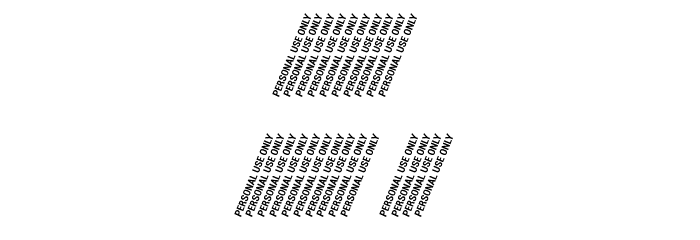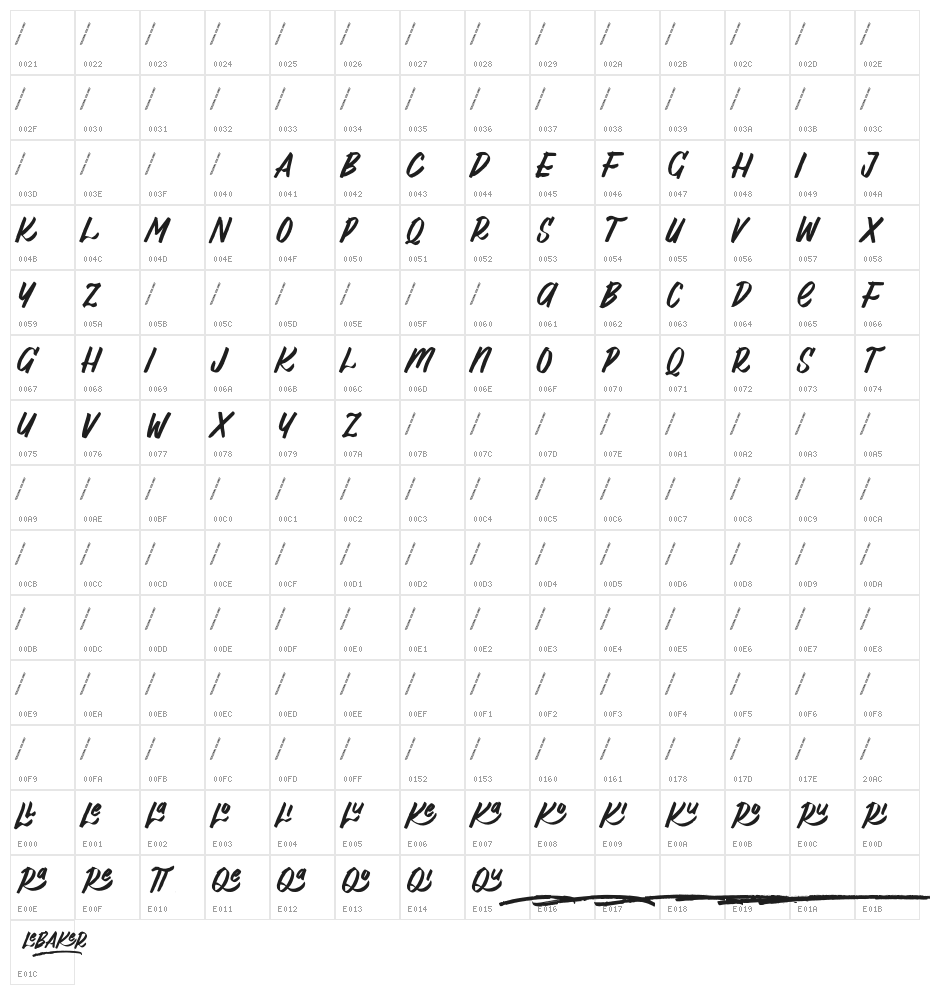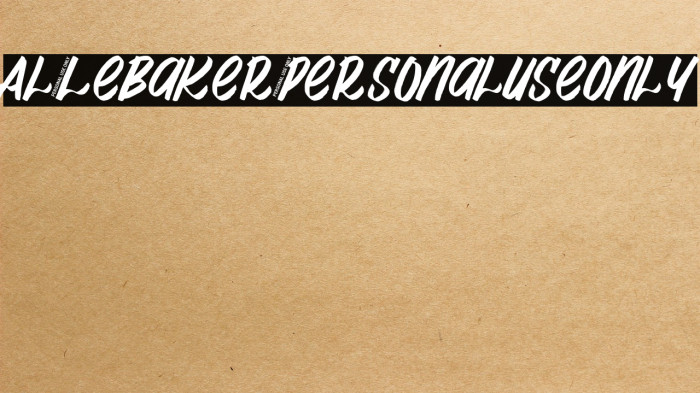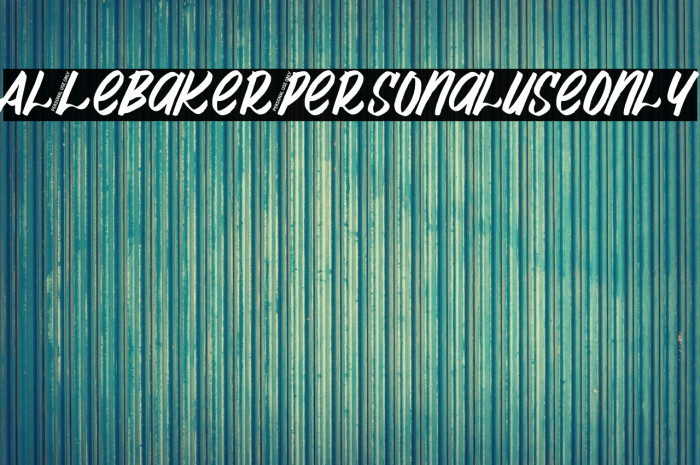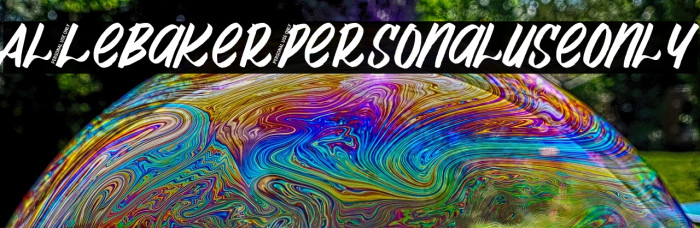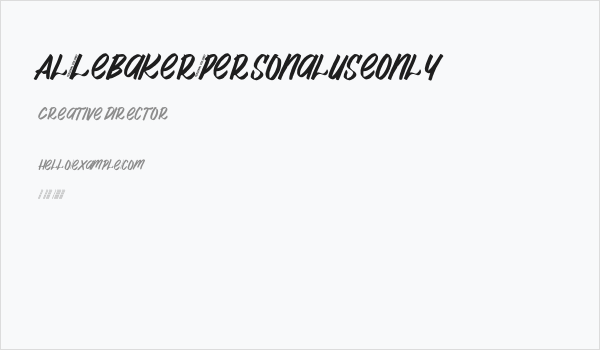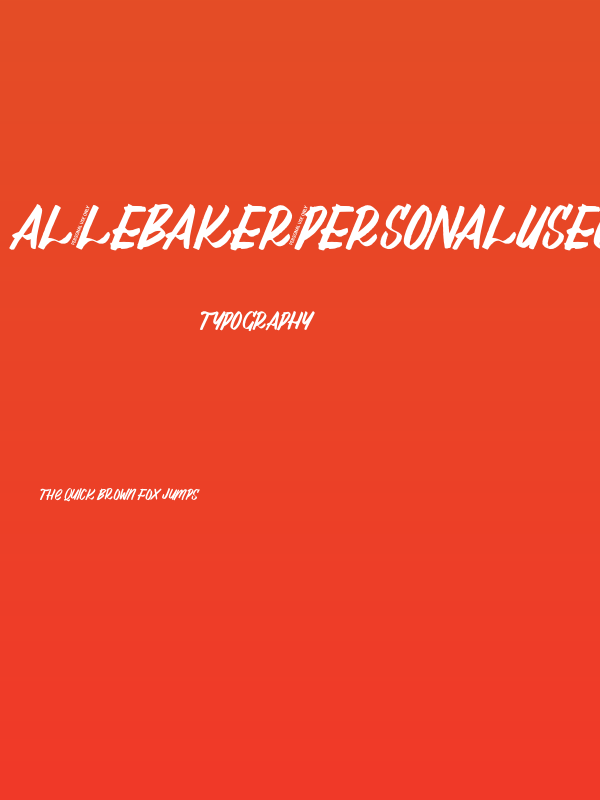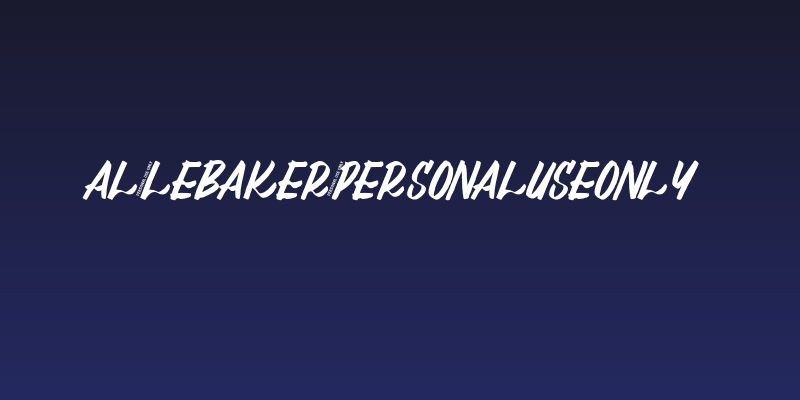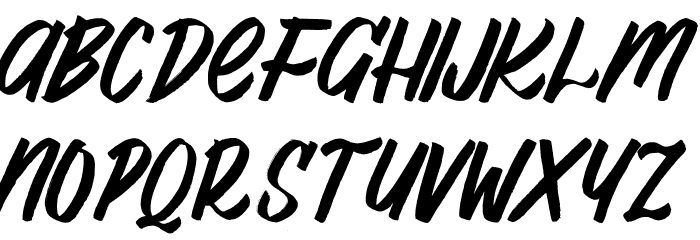
Al_LeBaker_PersonalUseOnly Font
Al_LeBaker_PersonalUseOnly Description
This font features a bold and dynamic script style with a handwritten appearance. The characters are slightly slanted, giving a sense of movement and energy. The strokes are thick and consistent, providing a strong visual impact. The uppercase and lowercase letters maintain a cohesive style, with rounded edges and smooth curves. This font exudes a casual yet sophisticated vibe, making it suitable for creative and expressive designs.
| Proposed Projects | Ideal for branding projects, logo design, posters, and social media graphics where a personal and energetic touch is desired. |